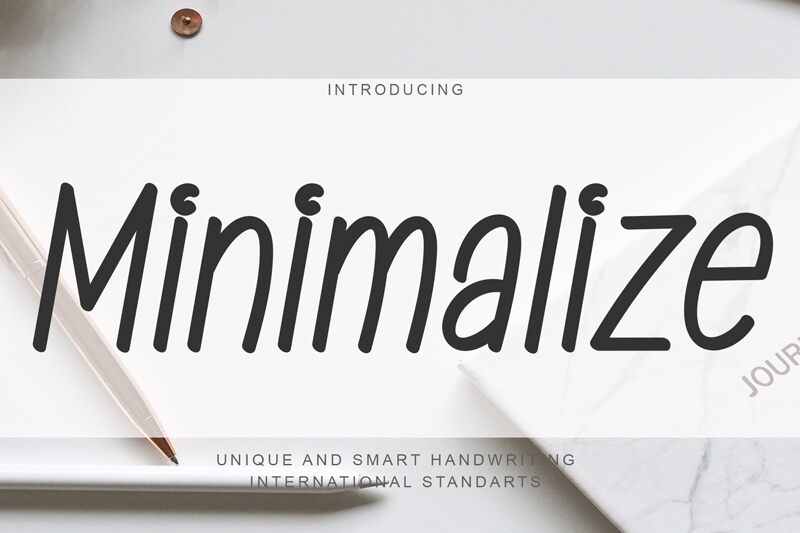
Minimalize
Minimalize font is a free handwritten font designed by Creatype Designer with an organic flow and a modern touch. Each condensed letter has a casual body that echoes an effortless flow and feel.
Minimalize can be used for cards, invitations, logos, quotes, advertising campaigns, branding projects such as bags or apparel items from your new collection.